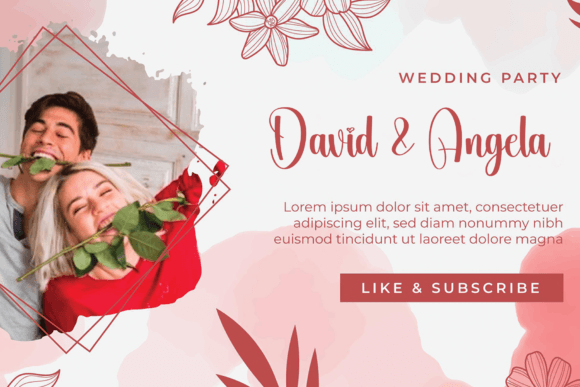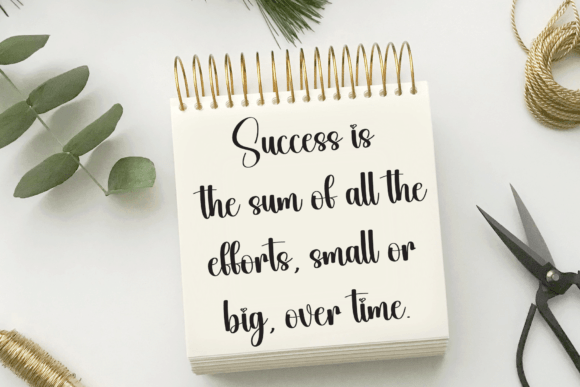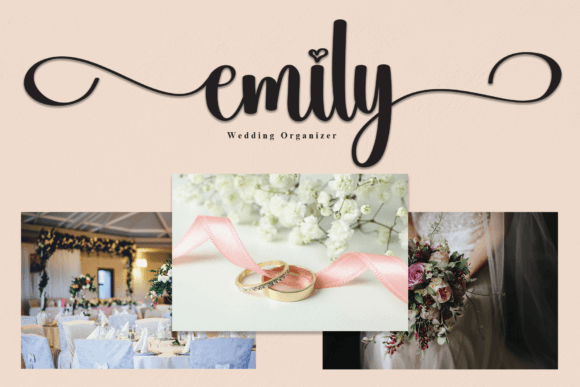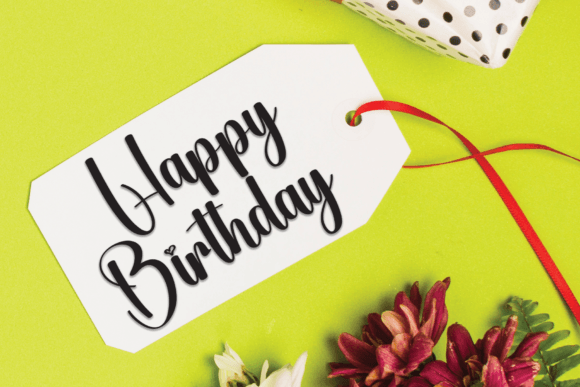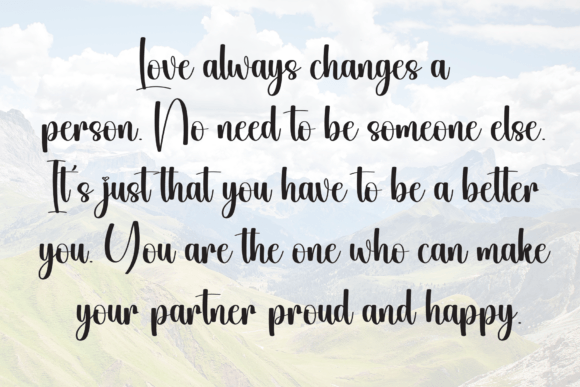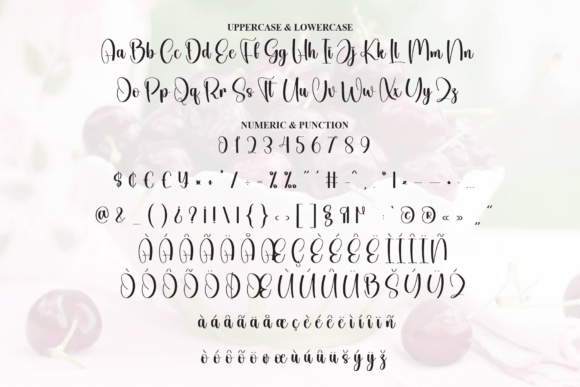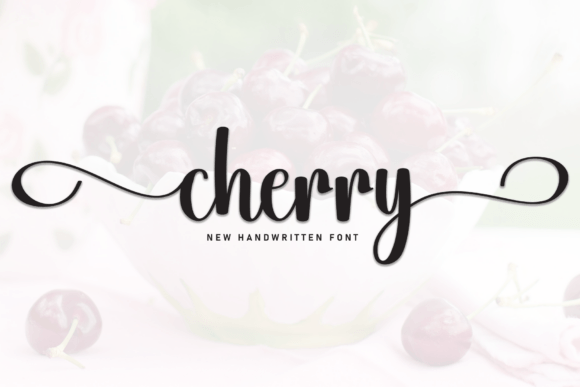
Introducing Cherry Font: The Whimsical Handwritten Display Font
Are you tired of using the same old fonts in your designs? Look no further! We’re excited to introduce Cherry Font, a whimsical handwritten display font that’s sure to add a playful touch to any design. With its sugary sweetness and friendly demeanor, this font is perfect for designers and crafters looking to infuse their work with a dose of fun and personality.
The Charm of Cherry Font
Cherry Font is a beautifully crafted handwritten font that exudes charm and cuteness. Its elegant yet playful strokes make it perfect for a variety of design projects, from heartfelt wedding invitations to thoughtful cards and more. Whether you’re a professional designer or a DIY crafter, this font is sure to delight with its whimsical and endearing personality.
So, what can you use Cherry Font for? The possibilities are endless! Here are a few ideas to get you started:
- Wedding Invitations: Add a touch of sweetness and romance to your wedding invitations with Cherry Font. Its elegant strokes and playful demeanor make it perfect for formal and informal wedding designs.
- Cards and Stationery: Whether you’re creating birthday cards, thank-you notes, or everyday stationery, Cherry Font is sure to add a dose of fun and personality to your designs.
- Social Media Graphics: Add a playful touch to your social media graphics with Cherry Font. Its whimsical strokes and friendly demeanor make it perfect for creating engaging and shareable content.
- Branding and Packaging: Use Cherry Font to add a touch of personality to your brand’s packaging and marketing materials. Its unique and playful strokes make it perfect for brands looking to stand out from the crowd.
Why Choose Cherry Font?
So, why choose Cherry Font over other fonts? Here are a few reasons why designers and crafters love this whimsical handwritten display font:
- Unique and Playful: Cherry Font is a one-of-a-kind font that’s sure to add a dose of fun and personality to your designs.
- Elegant yet Fun-Filled: This font strikes the perfect balance between elegance and playfulness, making it perfect for a variety of design projects.
- Easy to Read: Despite its playful strokes, Cherry Font is easy to read and understand, making it perfect for body text and headlines.
- Versatile: Cherry Font can be used for a variety of design projects, from digital designs to print materials.
Tips for Using Cherry Font
Here are a few tips for using Cherry Font in your designs:
- Pair with Other Fonts: Cherry Font pairs perfectly with other fonts, such as sans-serif fonts and script fonts. Experiment with different font combinations to find the perfect look for your design.
- Use for Headlines and Titles: Cherry Font is perfect for headlines and titles, where its playful strokes and elegant demeanor can shine.
- Add a Pop of Color: Cherry Font looks great with bright and bold colors. Add a pop of color to your design to make it stand out.
In conclusion, Cherry Font is a whimsical handwritten display font that’s perfect for designers and crafters looking to add a playful touch to their designs. With its sugary sweetness and friendly demeanor, this font is sure to delight with its charm and cuteness. Whether you’re creating wedding invitations, cards, or social media graphics, Cherry Font is the perfect choice. So why wait? Download Cherry Font today and step up your design game!